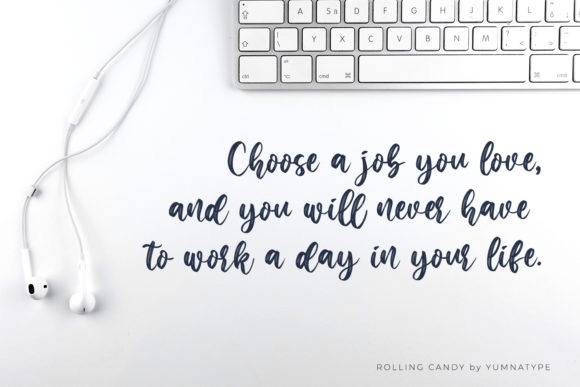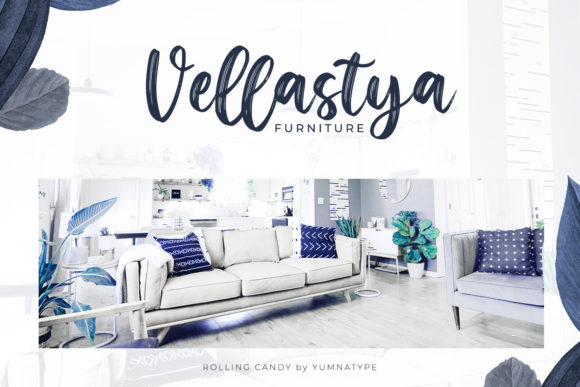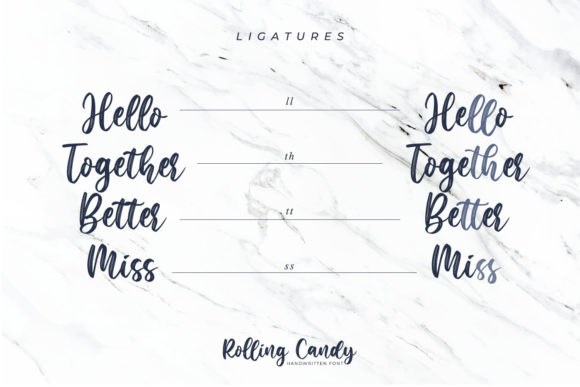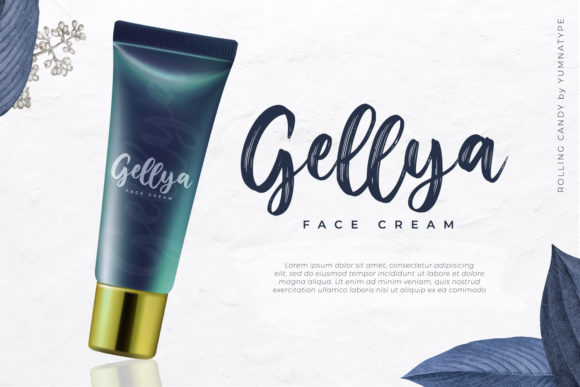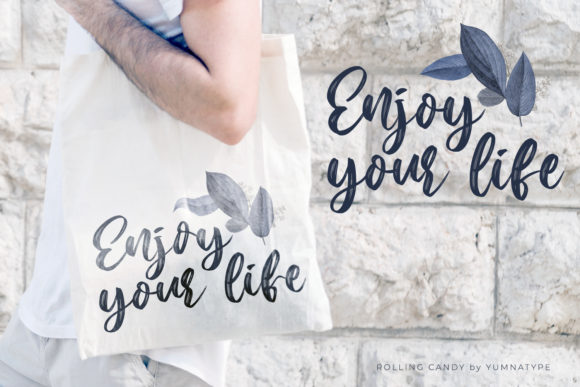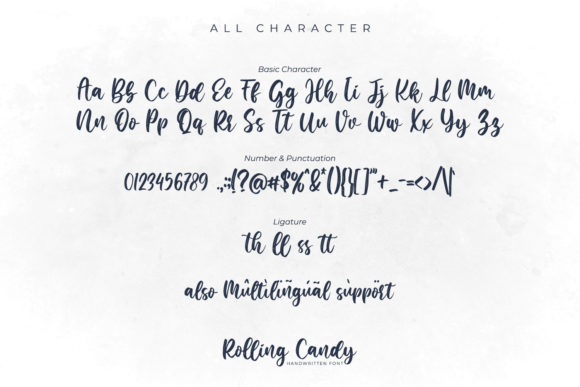
Introduction to Rolling Candy Font
Rolling Candy is an exquisite handwritten font, masterfully designed to become a true favorite.
Key Features of Rolling Candy Font
Why Choose Rolling Candy Font?
Rolling Candy Font offers exceptional quality and versatility, making it a valuable addition to your design toolkit. Whether you’re creating for personal projects or commercial use, Rolling Candy Font delivers professional results.